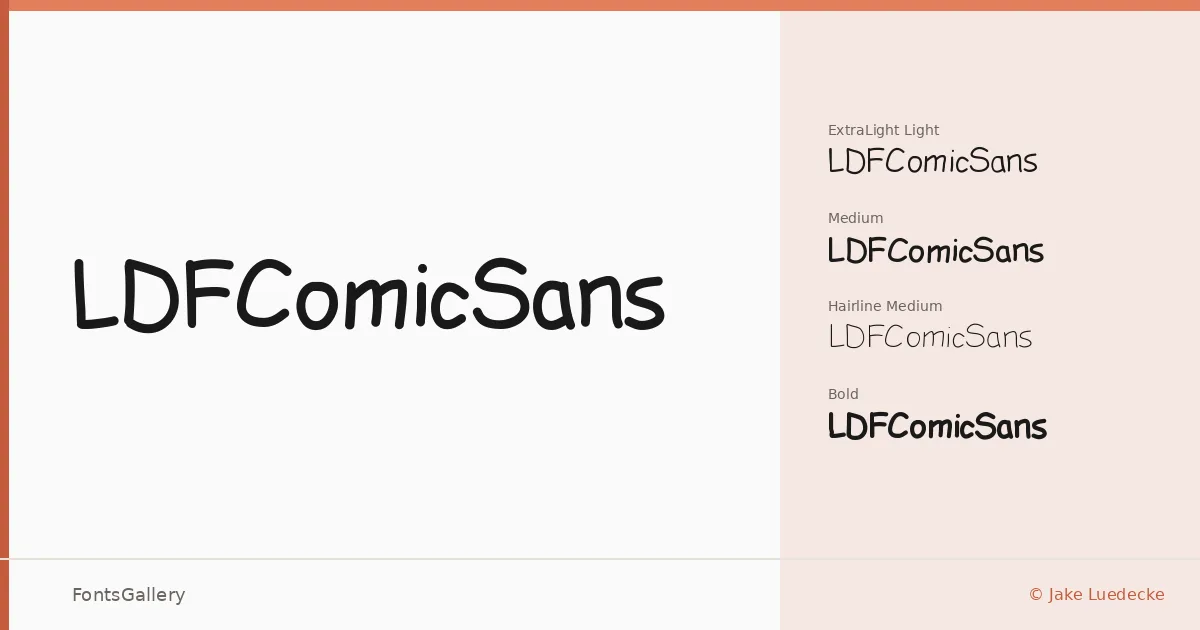
About LDFComicSans Font
There is something deliberately loose and human about these letterforms — the kind of casual stroke energy that belongs on a handwritten note rather than a typeset page. Designed by Jake Luedecke, this handwritten family takes the spirit of informal script and distributes it across a thoughtful range of weights, giving designers real control over tone rather than forcing a single loud register.
The family spans four cuts — LDFComicSansHairline at its most delicate, LDFComicSansLight for an airy touch, LDFComicSans at a sturdy medium, and LDFComicSansBold when the moment calls for something with more presence. All four arrive as TTF files. The mood sits firmly in playful and whimsical territory: strokes feel hand-drawn without being sloppy, modern without losing the warmth that makes informal lettering approachable.
The lighter weights are natural fits for greeting cards and children's book interiors, where a gentle touch reads as friendly rather than loud. The medium and bold cuts hold up well on posters, T-shirt designs, and social media graphics where the handwritten character needs to carry at a distance. For contrast pairings, the family works alongside Anglecia Pro, Helvetica, AQUA, Abrade, and Aranea — each offering a different degree of structural counterweight to the script's informal energy.